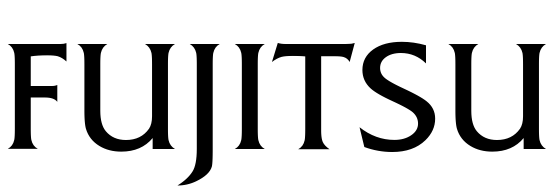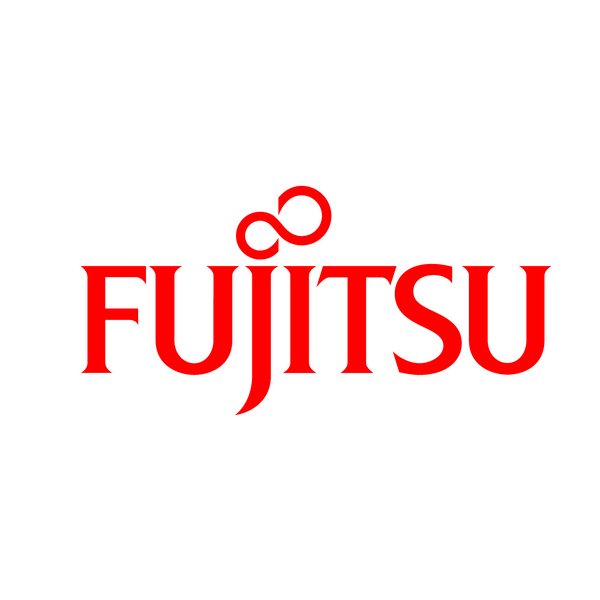
Fujitsu Font
ElectronicsFujitsu is a Japanese multinational information technology equipment and services company that offers a range of products and services including computers, servers, storage devices, and software solutions.
The logo for Fujitsu showcases an infinity symbol above the company name, representing the limitless potential of the company. The wordmark appears to be custom-drawn, though it closely resembles the typeface Friz Quadrata, with the exception of the letter "U." Friz Quadrata is a commercially available font and further details can be found here.